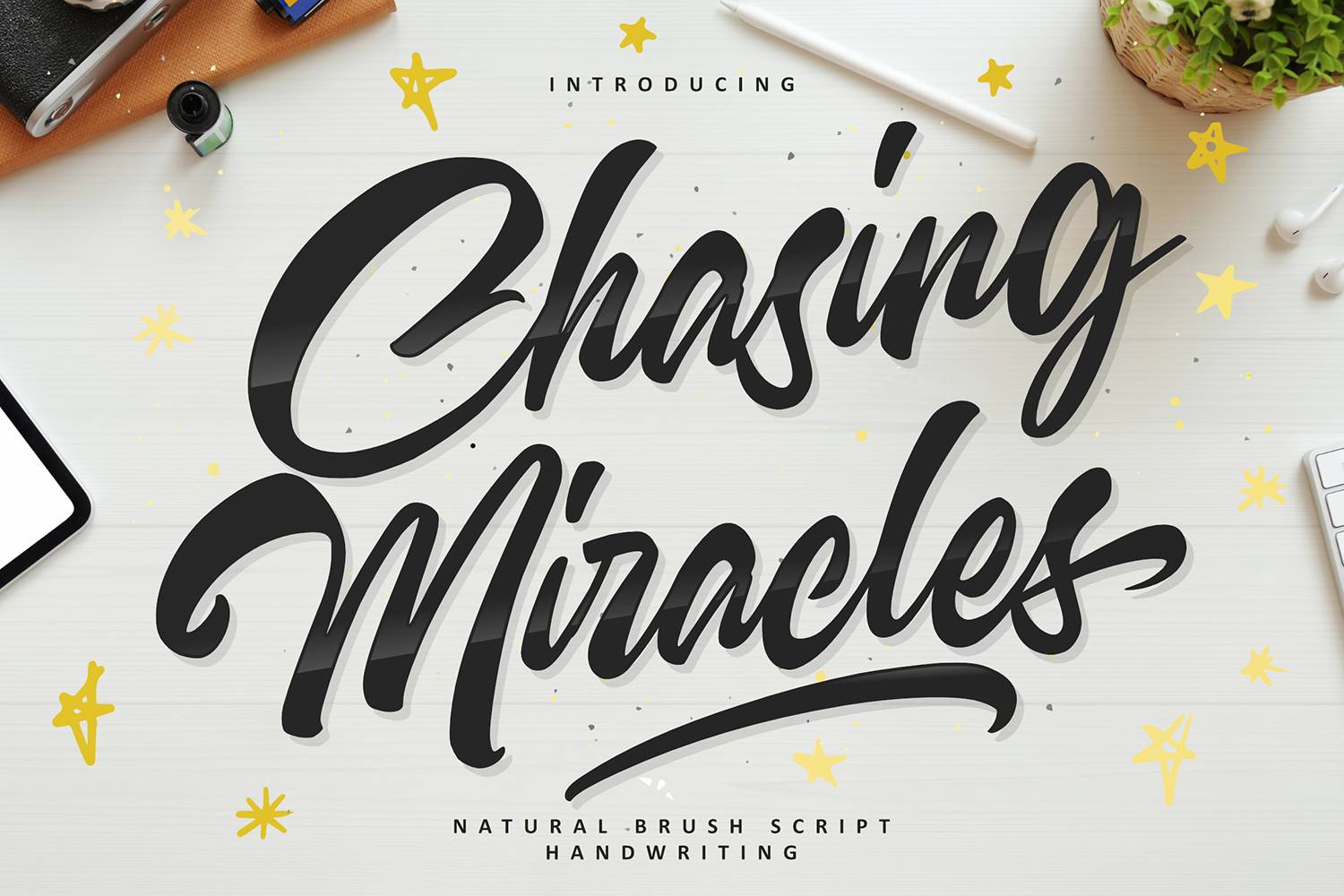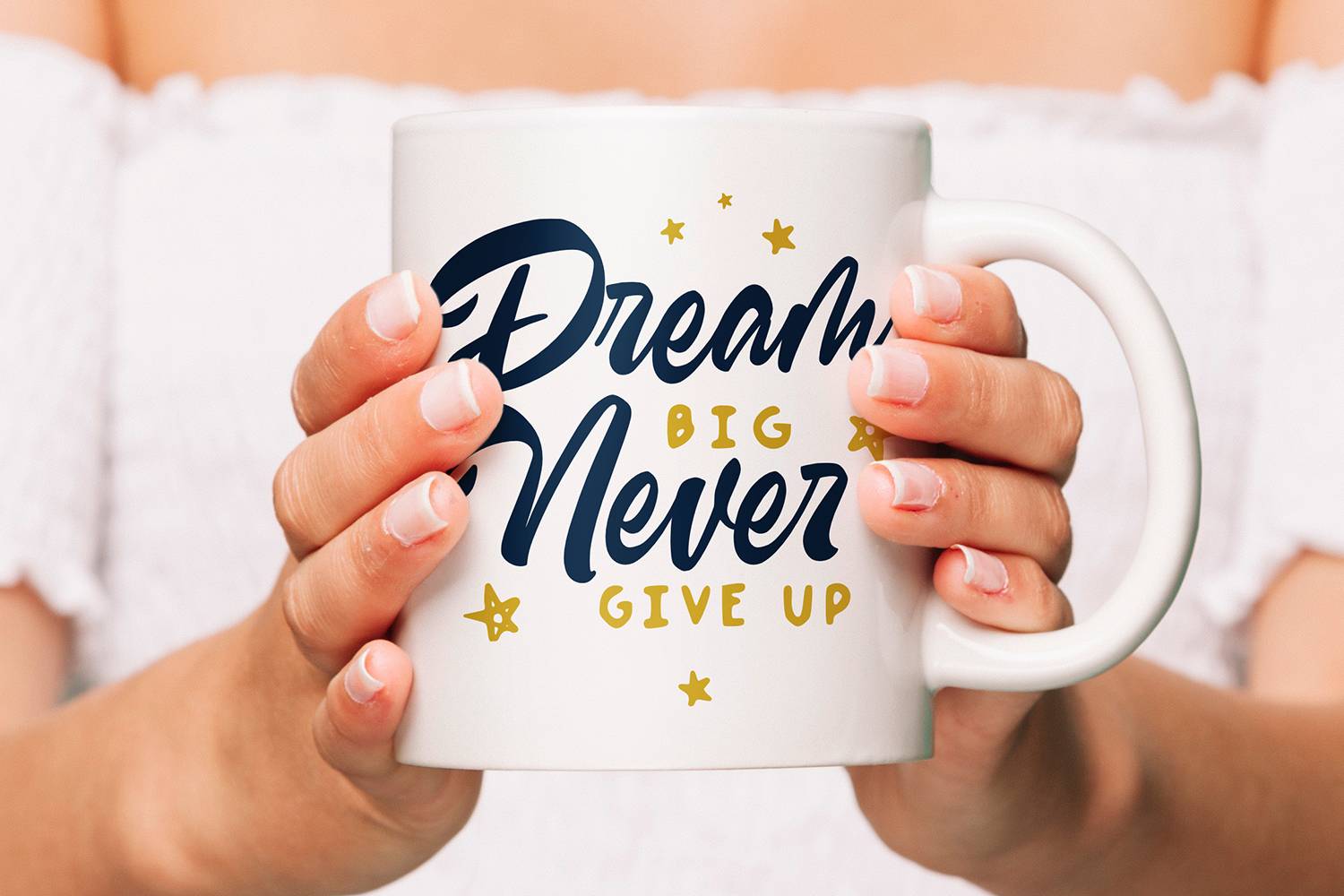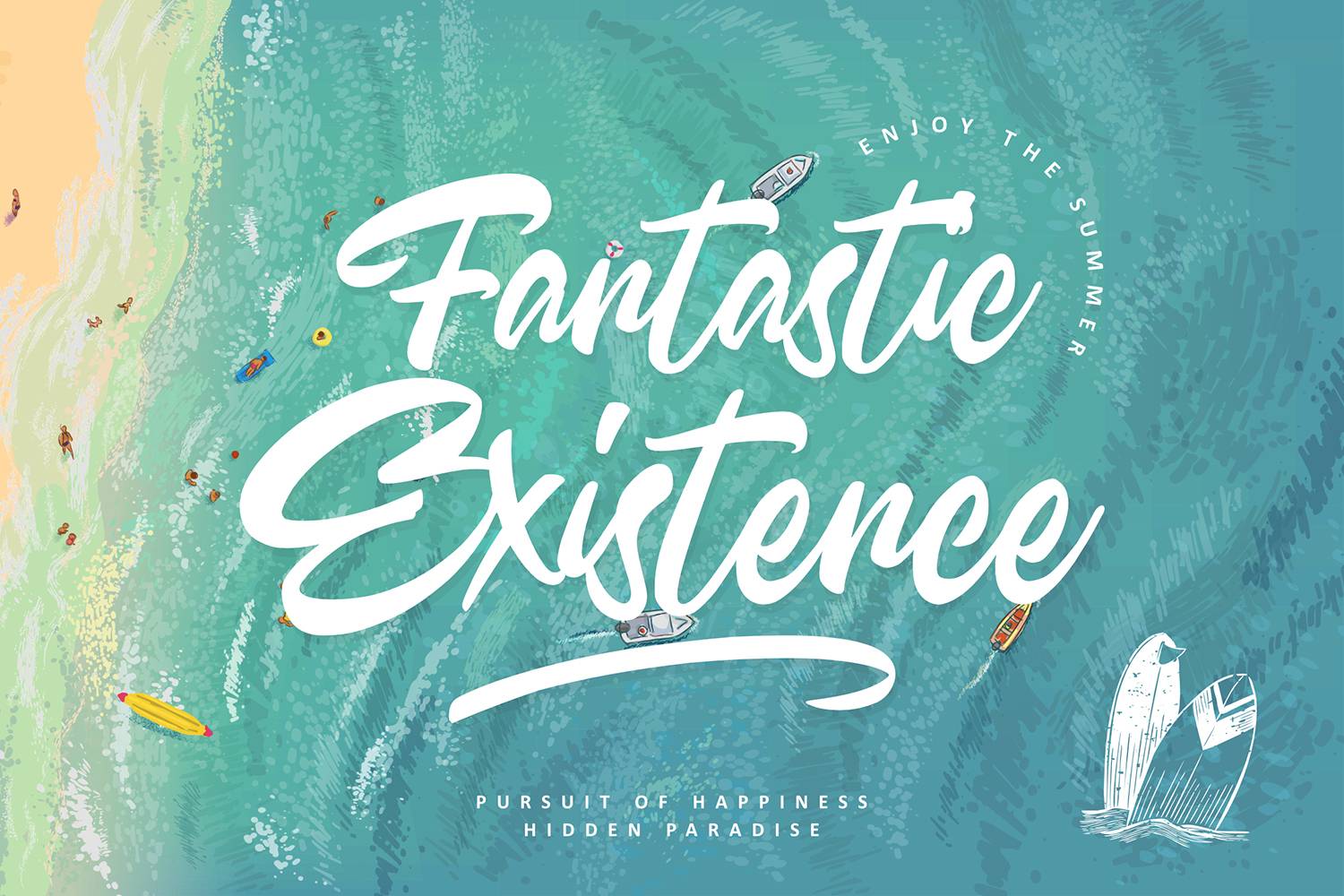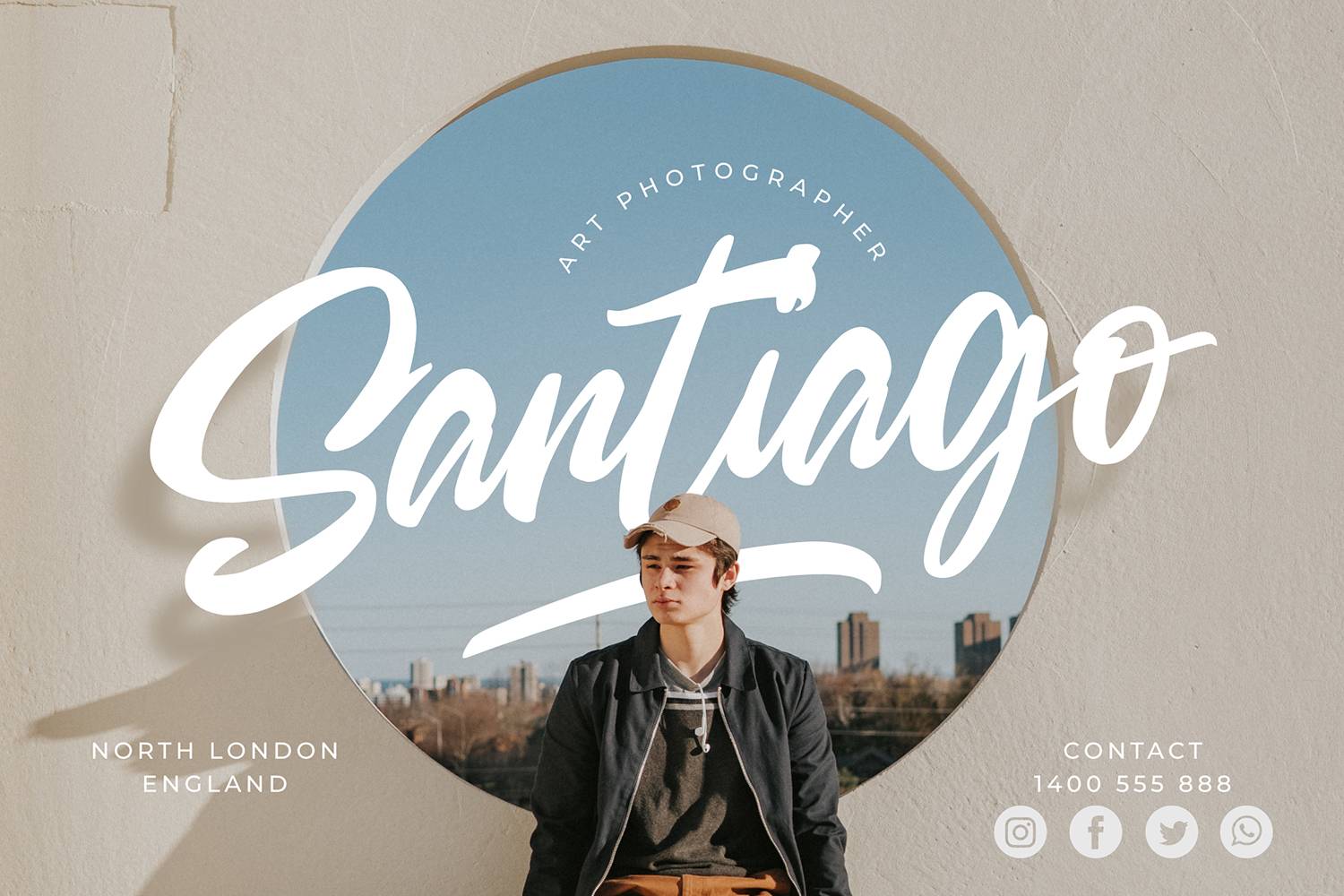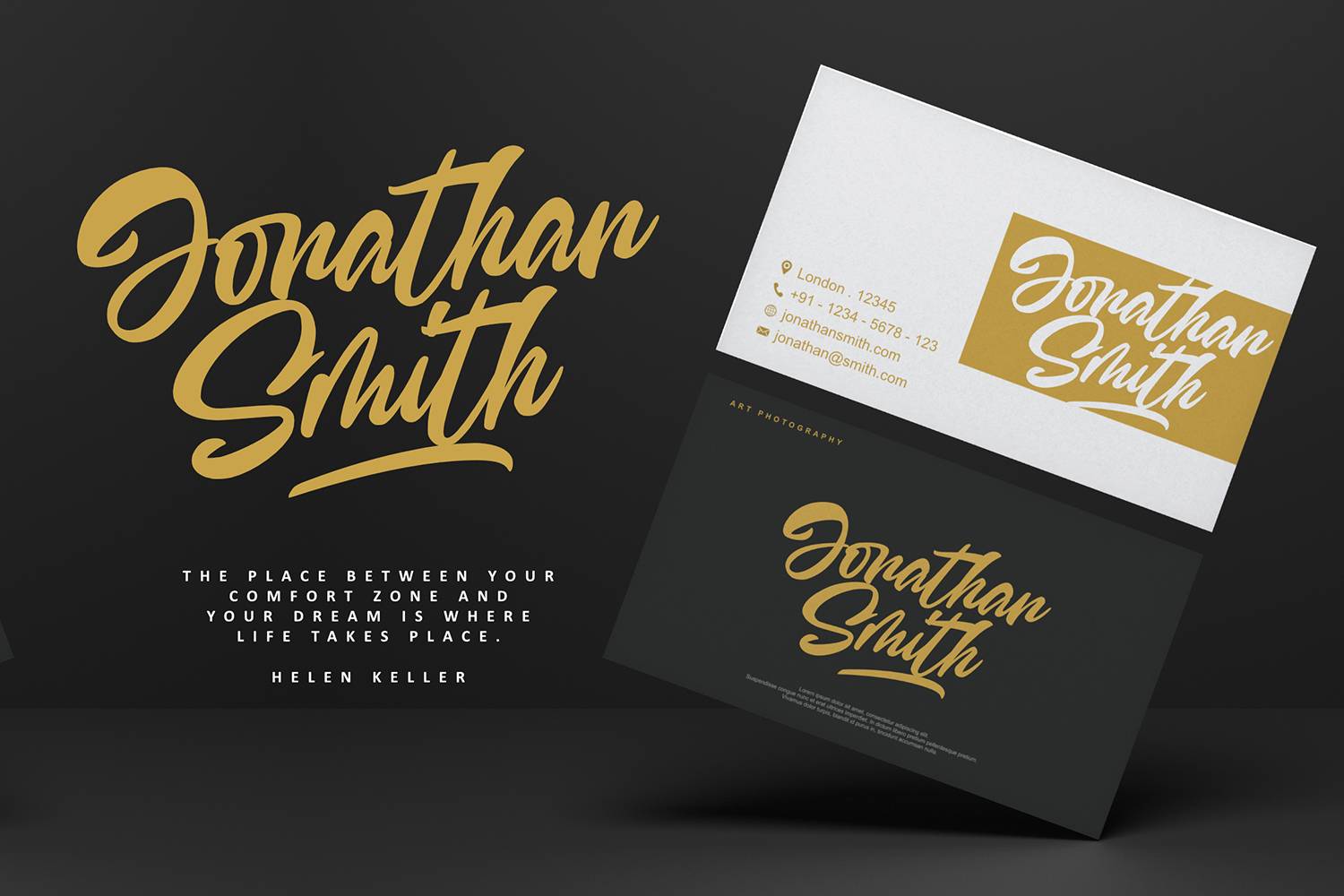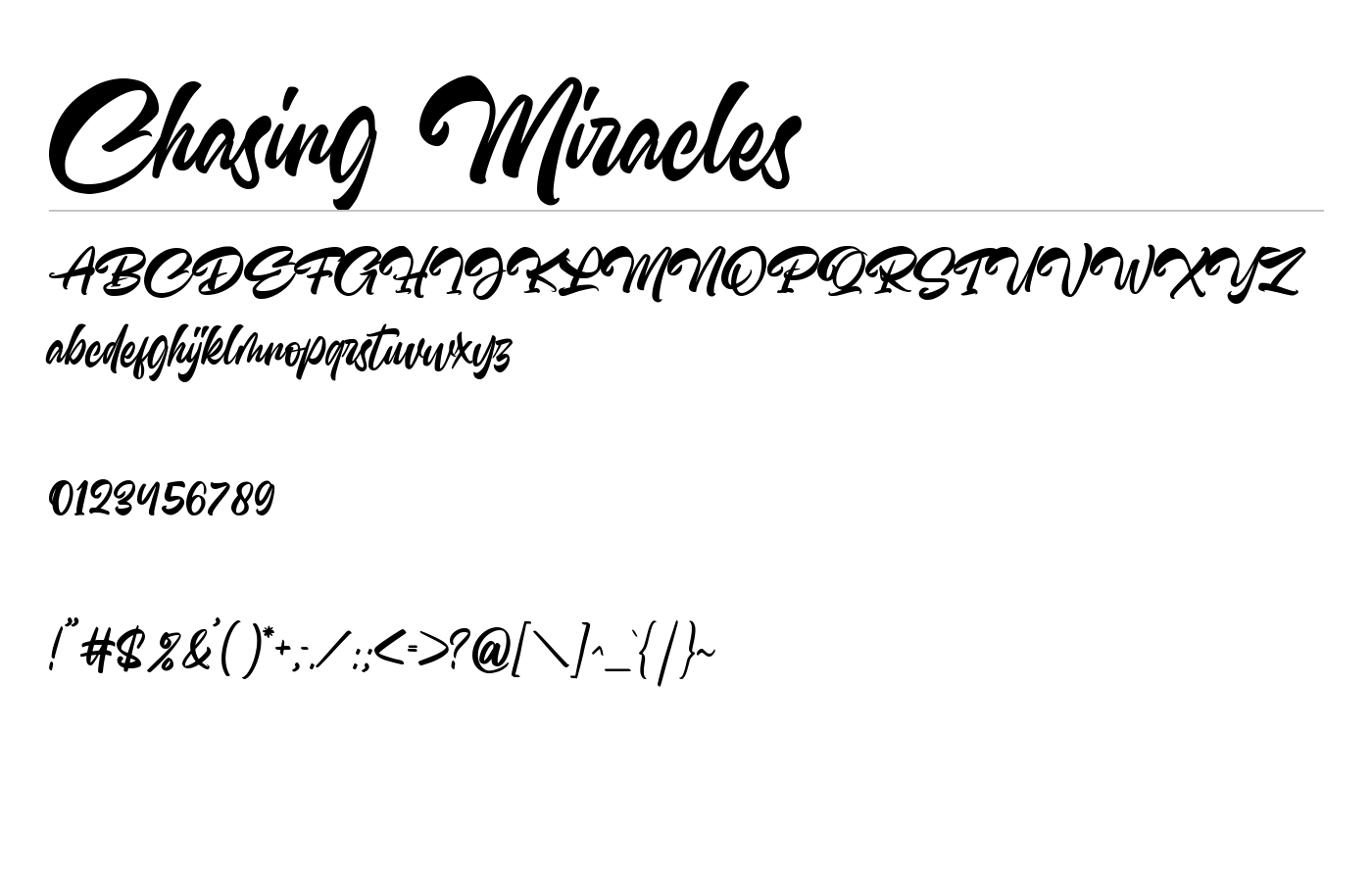
Chasing Miracles is an elegant script font with a lively, handwritten feel that blends smooth, flowing strokes with bold, confident weight. Its high contrast and stylish curves convey a personal yet sophisticated tone, making it perfect for branding, invitations, headlines, and projects needing a touch of creativity and charm. This font works best where a vibrant, artistic expression is desired, adding personality while maintaining readability.
Chasing Miracles Font
About Chasing Miracles Font
| Font family | Chasing Miracles Font |
| Release date | 2021-09-10 |
| Designer | Ardian Nuvianto |